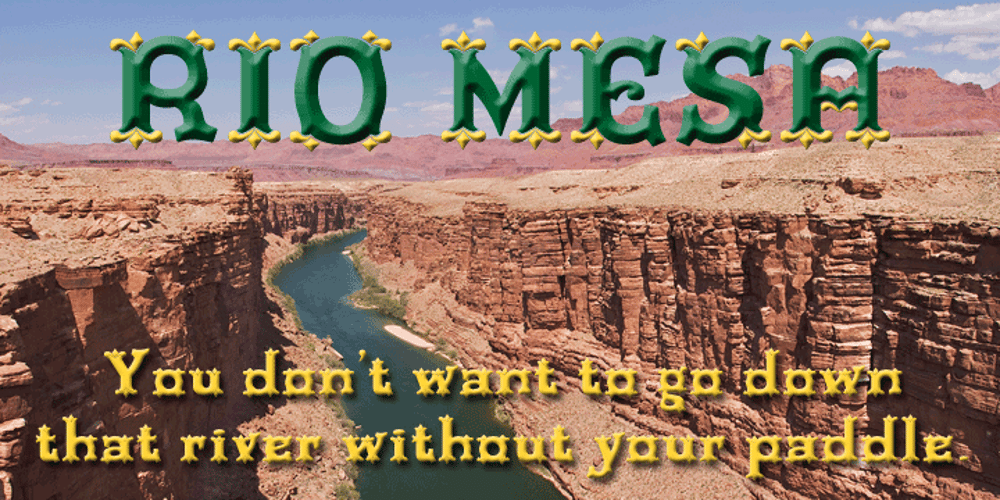
Rio Mesa Font Family was designed by published by FontMesa. Rio Mesa contains 2 styles and family package options. A FontMesa original, Rio Mesa, with it’s western flare, comes with an extra fill font containing the serifs only. You will need an application that works in layers in order to use the fill fonts that come with FontMesa fonts.